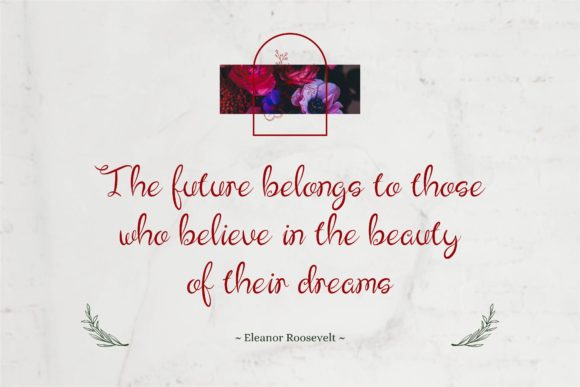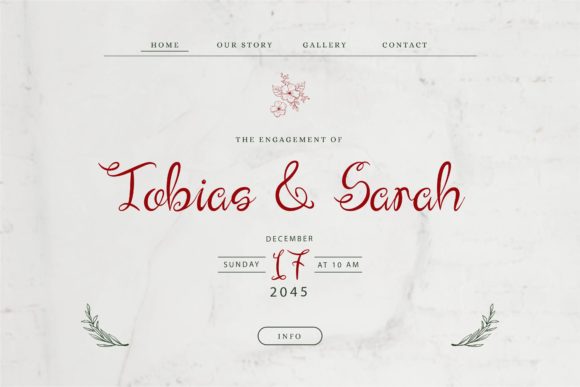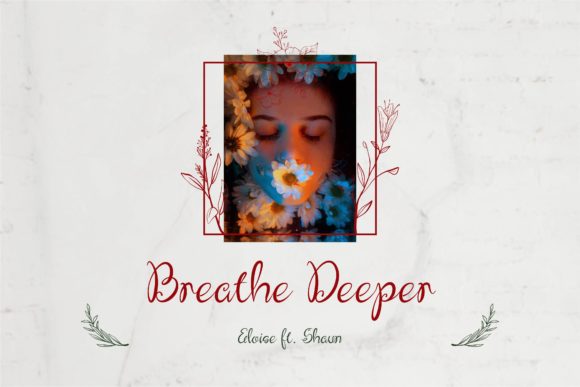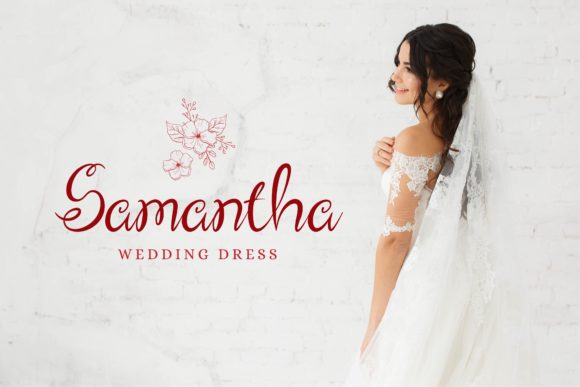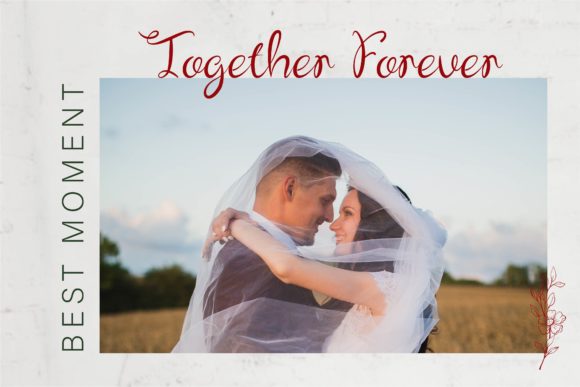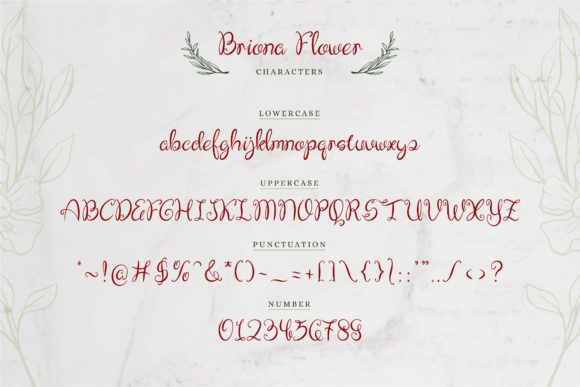
The Perfect Petal: Unlocking the Beauty of Briona Flower Font
Have you ever been browsing through a wedding invitation and stopped dead in your tracks because of its beauty? Maybe it was the elegant script, the delicate petals, or the whimsical feel that caught your eye. Whatever it was, you knew right then and there that you wanted to create something just as stunning. As designers, we’ve all been there – searching for that perfect font to bring our vision to life.
That’s where Briona Flower Font comes in – a thin lettered and graceful script font that’s sure to fall in love with your heart. This ravishing font is perfect for creating gorgeous wedding invitations, beautiful stationary art, eye-catching social media posts, and much more! With its delicate petals and whimsical feel, Briona Flower Font is a valuable addition to any designer’s toolkit, allowing you to add a touch of elegance and sophistication to any project.
Briona Flower Font Key Features
- Font Family: Briona Flower is a unique, hand-drawn floral font designed for creative and elegant purposes.
- Unique Characteristics: Features intricate floral patterns and delicate brushstrokes, perfect for adding a touch of whimsy to designs.
- Language Support: Supports a wide range of languages, including Latin, Cyrillic, and Greek, making it suitable for global designs.
- Number of Glyphs: Includes a comprehensive set of 400+ glyphs, including uppercase and lowercase letters, numbers, and punctuation marks.
Review of Briona Flower Font
Overall, I found Briona Flower Font to be a lovely, delicate script font that’s perfect for feminine or vintage-themed designs ✨. The font’s intricate details and subtle variations in letterforms give it a unique, hand-drawn feel that’s sure to catch the eye.
- The font’s flow and connection between letters is smooth and easy to read ✨
- The subtle flourishes and swashes add a touch of elegance and sophistication ✨
- The font is highly customizable, with a wide range of OpenType features and options ✨
- The font may be difficult to read at very small sizes, due to its intricate details and fine lines ⚠️
- The font may not be suitable for use in headlines or titles, as it can be easily lost in the noise ⚠️
- The font’s OpenType features can be overwhelming for beginners, and may require some practice to master ⚠️
Overall, I would recommend Briona Flower Font for designers looking to add a touch of whimsy and elegance to their designs. However, it’s not a one-size-fits-all solution, and may require some careful consideration and experimentation to get the most out of it.
Tips for Getting the Most Out of the Briona Flower Font
Use the Briona Flower Font to add a touch of whimsy and elegance to your designs.
Pair the font with bold, bright colors to create a striking visual effect.
Experiment with different font sizes and styles to achieve a unique look.
The Briona Flower Font is perfect for:
Creative projects, such as wedding invitations, party invitations, and greeting cards.
Branding and marketing materials, such as logos, business cards
Alternative Fonts to Briona Flower Font
1. Flourish Script
Flourish Script is a beautiful, elegant script font perfect for wedding invitations, greeting cards, and other formal events. It features a delicate, cursive design with a touch of whimsy.
Compared to Briona Flower Font, Flourish Script has a more refined and sophisticated feel, making it ideal for high-end designs. While Briona Flower Font has a more playful, vintage vibe, Flourish Script is better suited for formal, luxurious projects.
Great Vibes is a modern, elegant script font with a touch of sophistication. It’s perfect for branding, logos, and other high-end designs that require a sense of refinement.
Compared to Briona Flower Font, Great Vibes has a more contemporary feel, with clean lines and a modern aesthetic. While Briona Flower Font has a more vintage, floral vibe, Great Vibes is better suited for modern, cutting-edge projects.
What is the recommended font size for using the Briona Flower Font?
The recommended font size for using the Briona Flower Font is between 12pt and 24pt. This range provides optimal legibility and visual appeal for most design applications. However, you can experiment with different font sizes to achieve the desired effect for your specific project.